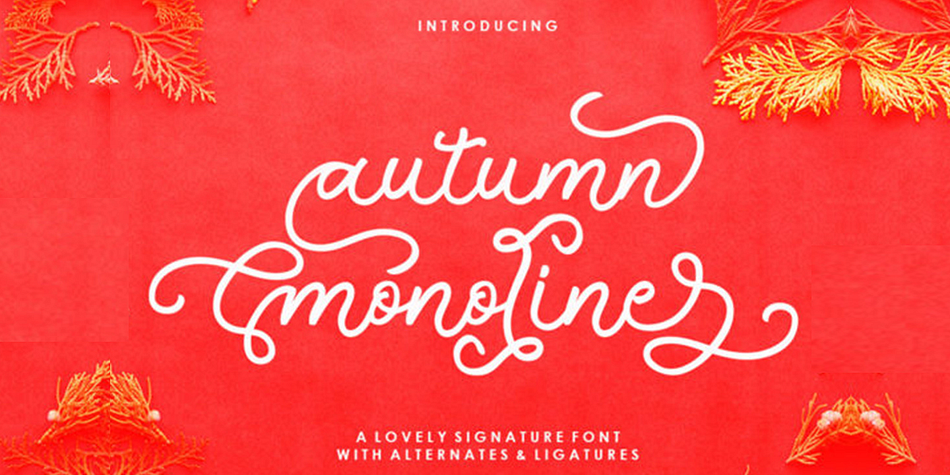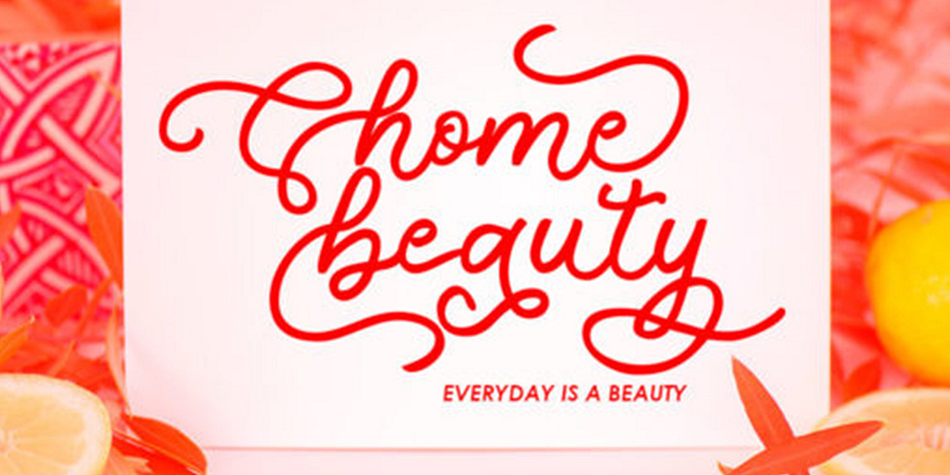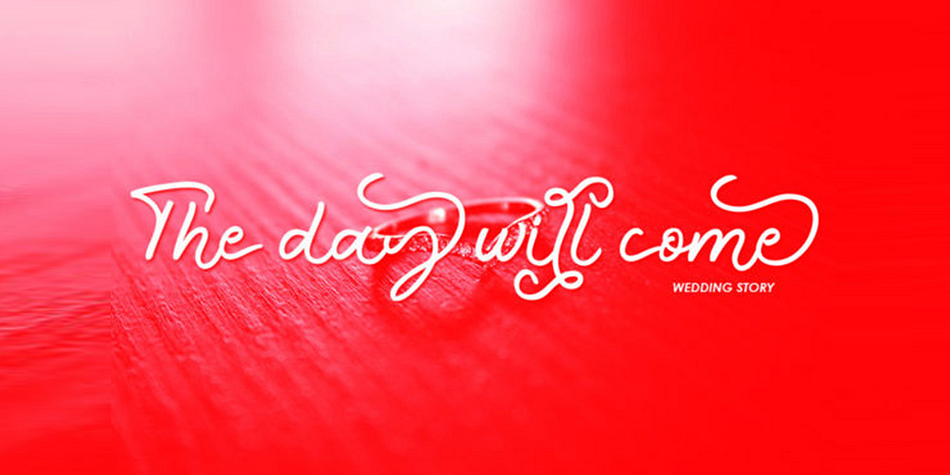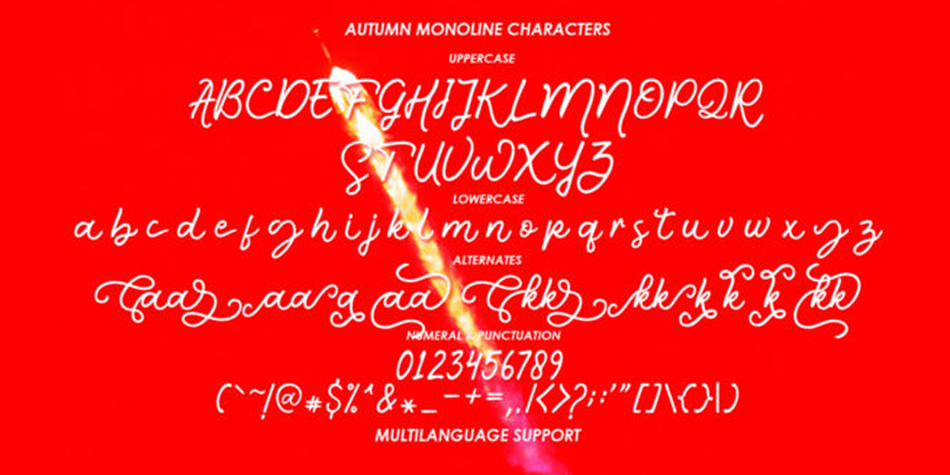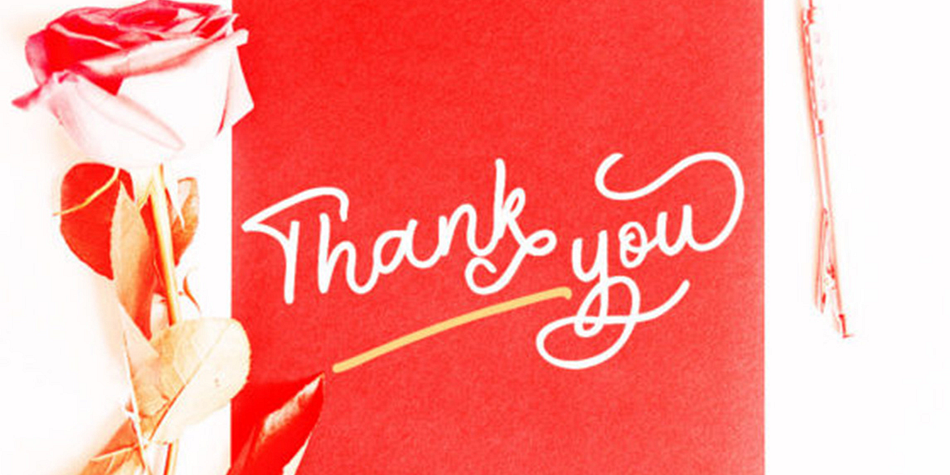
Autumn Monoline
Autumn Monoline is a brush script font family published by Gatype.
Autumn Monoline is a whimsical handwritten font, with a nostalgic touch. It looks breathtaking on a wide range of projects, from logos, to greeting cards, branding, quotes, prints, invitations and so much more! Autumn Monoline is PUA encoded which means you can access all of the glyphs and swashes with ease!